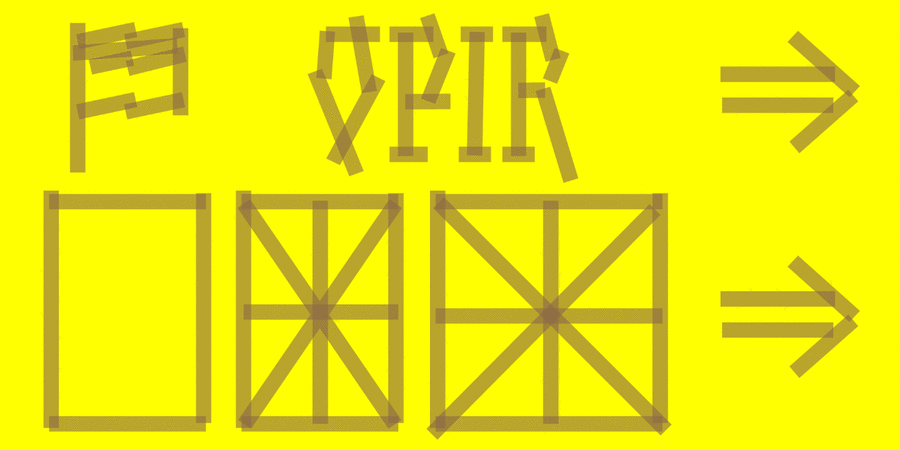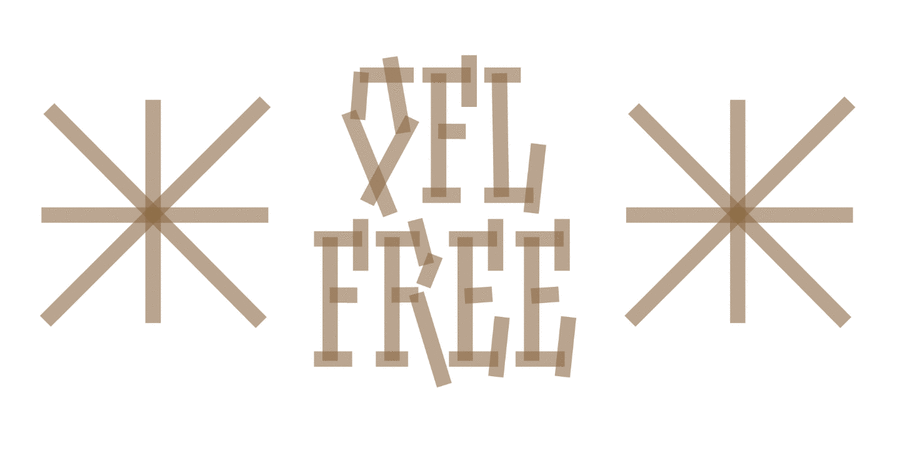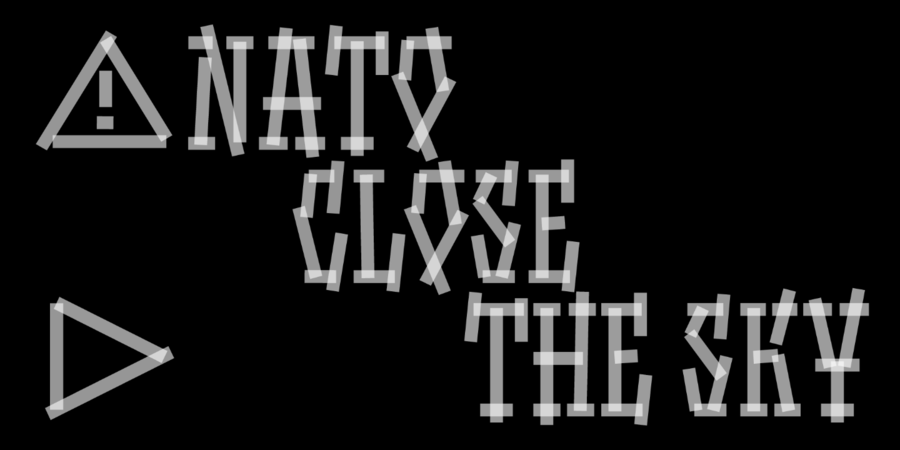
Almost two weeks have passed since the vile attack of russian troops on Ukraine, and the Ukrainian defenders all this time hold back the onslaught and offer colossal resistance. The name of this font means "resistance" in Ukrainian. That is what I dedicate this typeface to. It inspires and motivates me.
The graphics of the font are based on the common use of adhesive tape to protect glass in windows. This symbolizes resistance, but at the same time extreme caution. These are our realities of life today in Ukraine.
This is version 1.0 and it only supports English and Ukrainian languages. As well as many characters that can be found in glyphs in different graphics software. This is a colored translucent font. Color and transparency can be edited by expanding the letters to curves. The typeface was designed by Maksym Kobuzan in 2022.
cutting, tough, experimental, extremal, risky, street, rude, daring, shocking, broken, urbanistic, aggressive, emotional, bright, rigid, coloured, active, original, distinctive, expressive, slovenly, underground, garage, urban, strange, wild, notable, splashy, alive, walking, party, sharp, crisp, handicraft, craft brewed, solid, rhythmic, student, revolutionary, dangerous, impudent, vernacular, radical, military, strong, powerful, heavy, loud, intrusive, thorny, damaged, random, cracky, splintery, nervous, explosive, expressing, careless, yelling, brutal, night, quick-tempered, incendiary